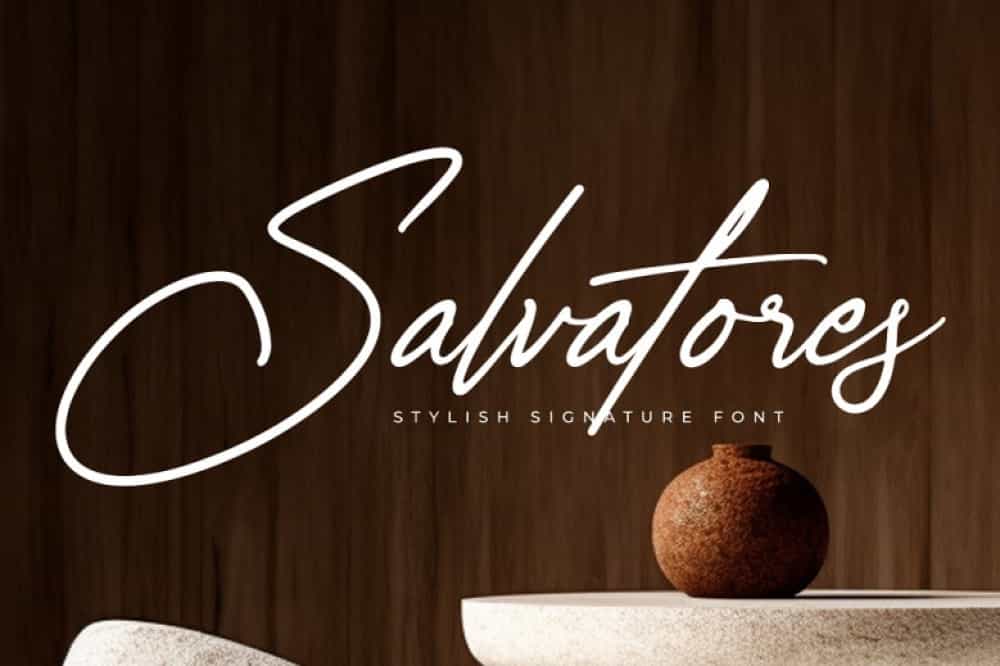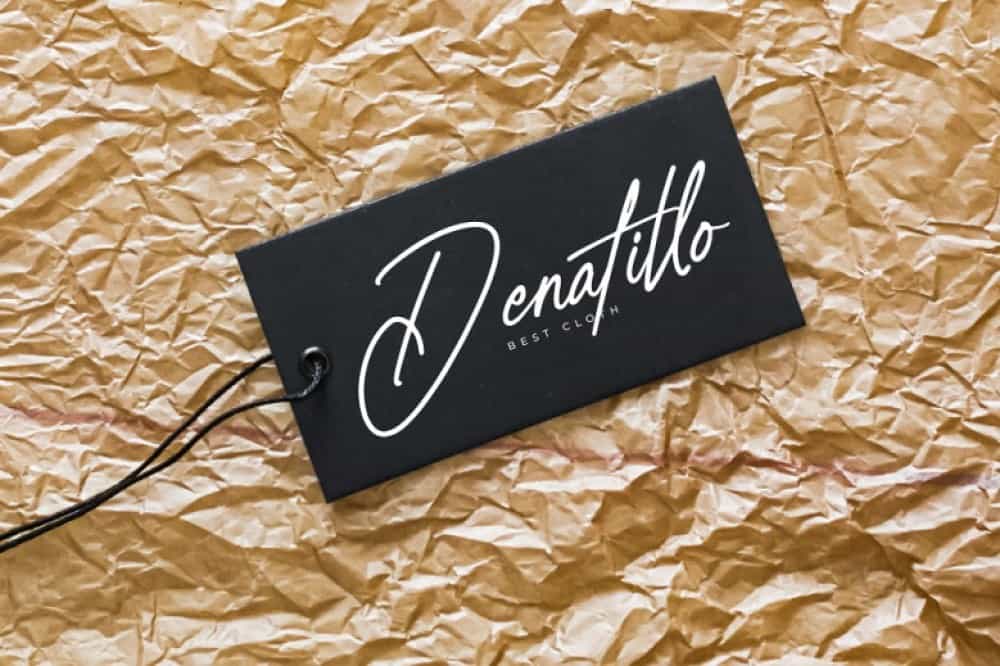
Salvatores – Stylish Signature Font, from Integritype Studio, perfect for any project like: logos, branding projects, home wares designs, product packaging, mugs, quotes, posters, shopping bags, t-shirts, book covers, business and event invitations cards, greeting cards, labels, photography, watermarks, special events and all your other luxurious projects that need the touch of quality.